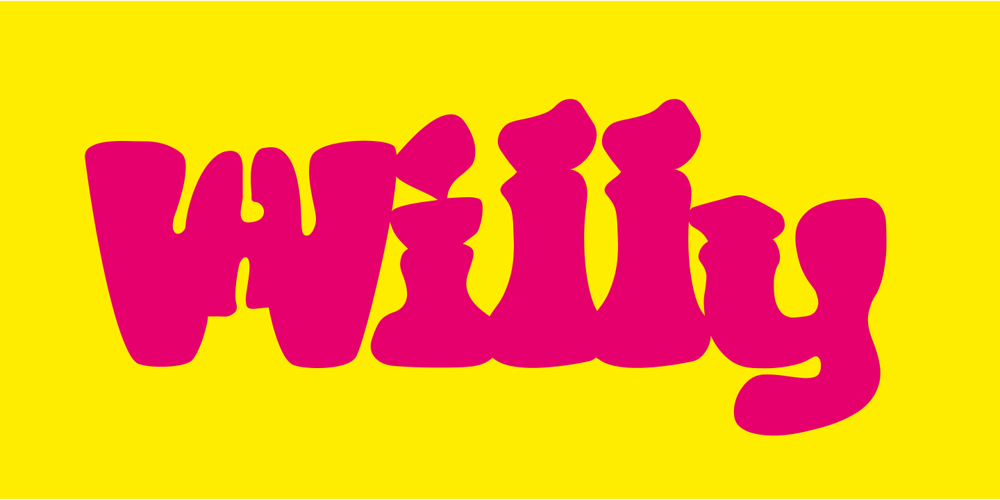
Ps Willy Font Family was designed by Peter Slager and published by Fontopia. Ps Willy contains 1 styles and family package options. Willy is a typeface with a wink. This display font is based on existing piquant form from the immediate vicinity. It is sexy, if you have an eye for. But it also should not be taken too seriously, especially because it has a humorous slant. The font has its origins in an art project. It is now made available for design around festifals, parties, invitations, etc.